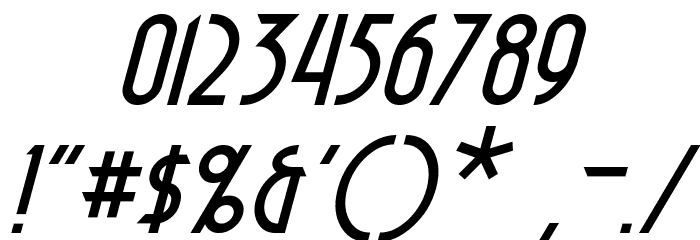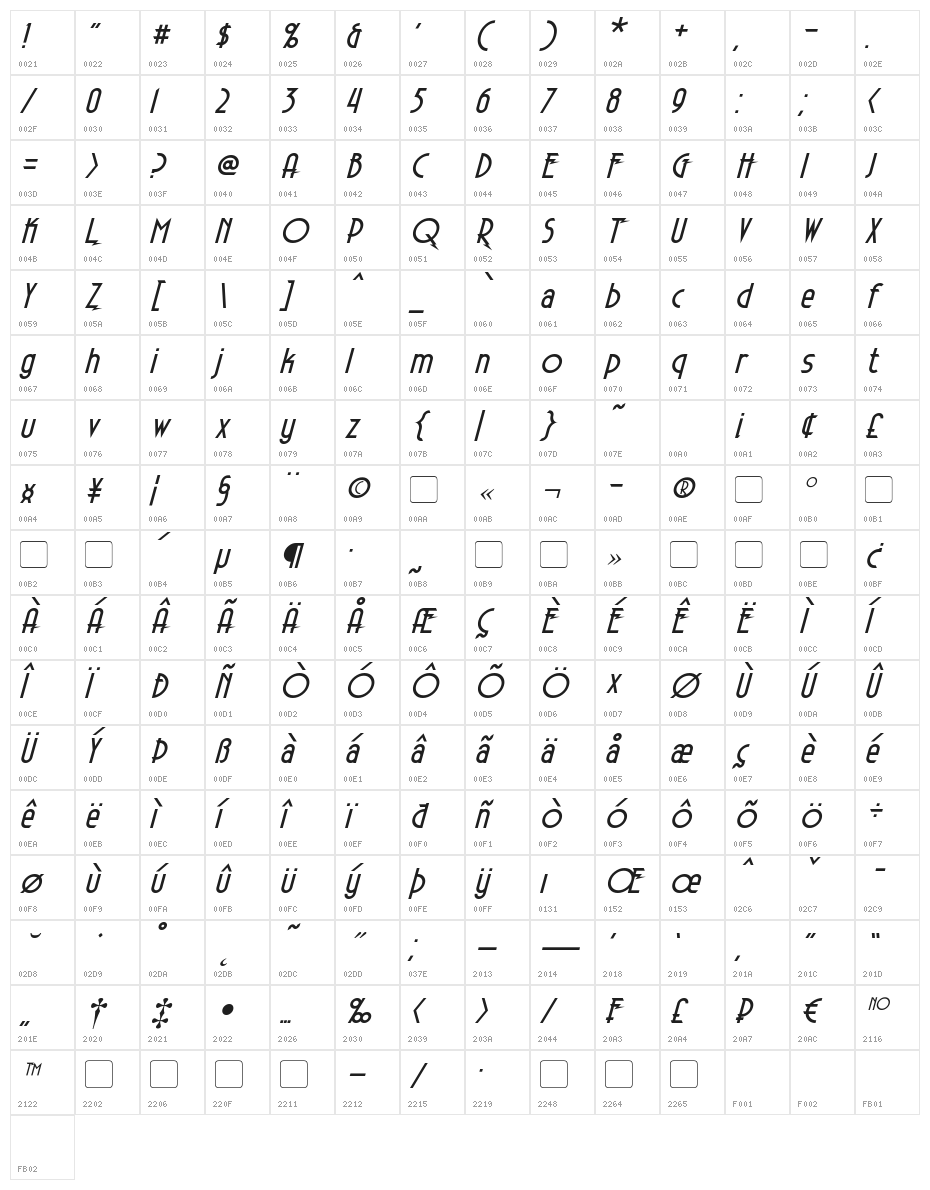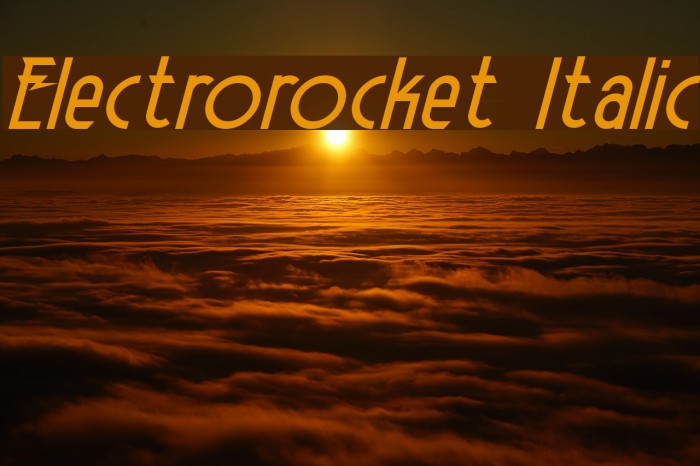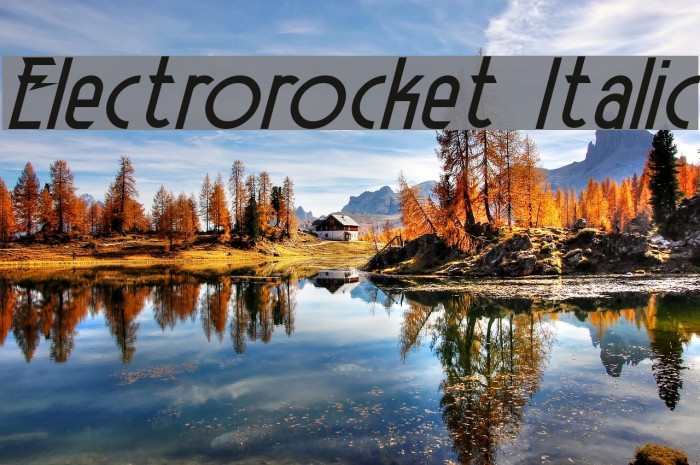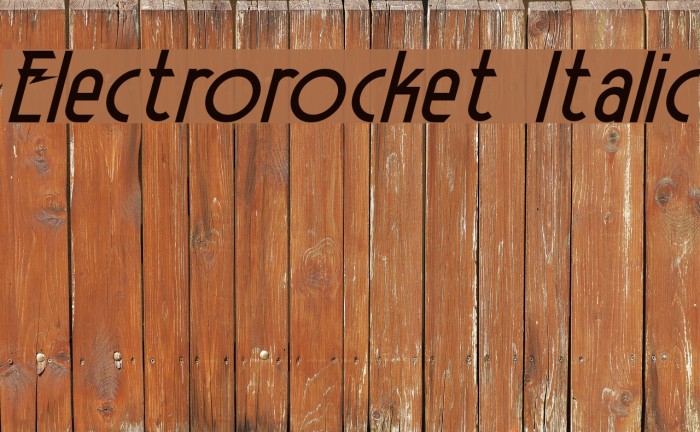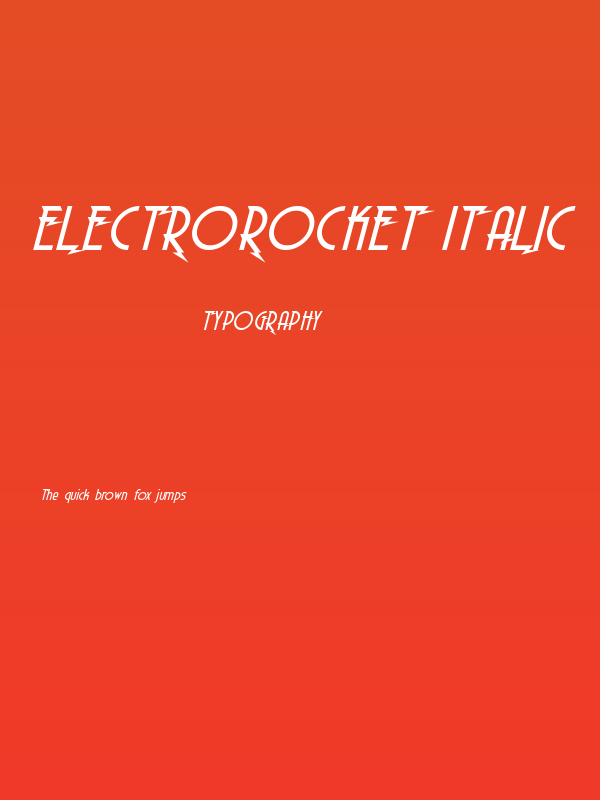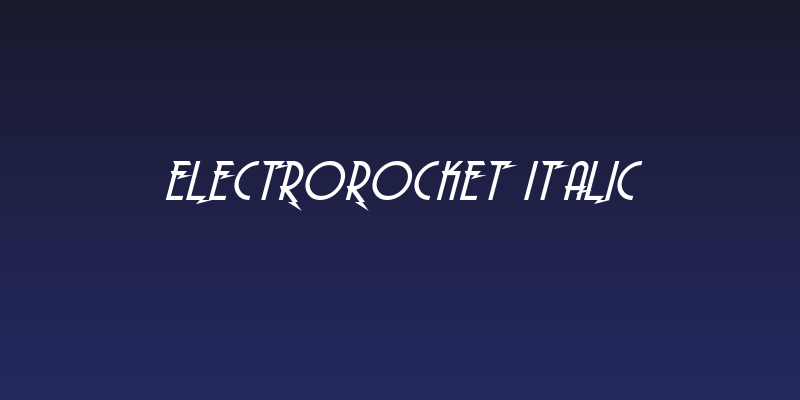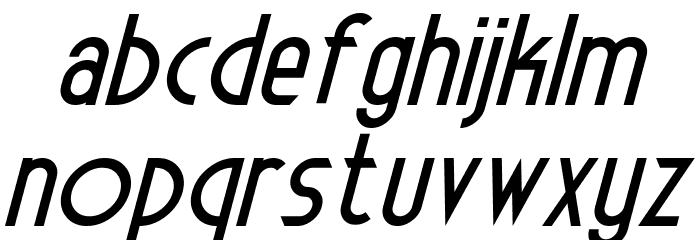
Electrorocket Italic Font
Electrorocket Italic Description
This font features a dynamic and futuristic design, characterized by sharp angles and a forward-leaning italic style. The uppercase letters exhibit a bold presence with unique lightning bolt-like elements integrated into certain characters, adding an energetic flair. The lowercase letters maintain a consistent slant, complementing the uppercase with a sleek and modern appearance. Numbers follow the same angular and italicized style, ensuring uniformity across all characters. Special characters are designed with the same attention to detail, making them suitable for a variety of creative applications. The overall aesthetic is bold and eye-catching, perfect for projects that require a modern and edgy look.